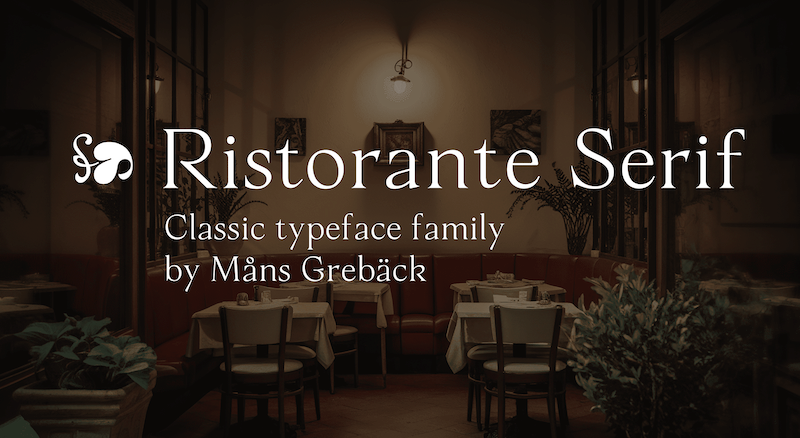
Font name: | Ristorante Serif |
NOTE: This font is for PERSONAL USE ONLY! To purchase a commercial license, visit: http://mn.sg/ristorante-serif Ristorante Serif is a thin and refined typeface. Its clean lines and subtle serifs evoke a classic sophistication, perfect for high-end branding. For questions, please visit www.mn.sg/faq |